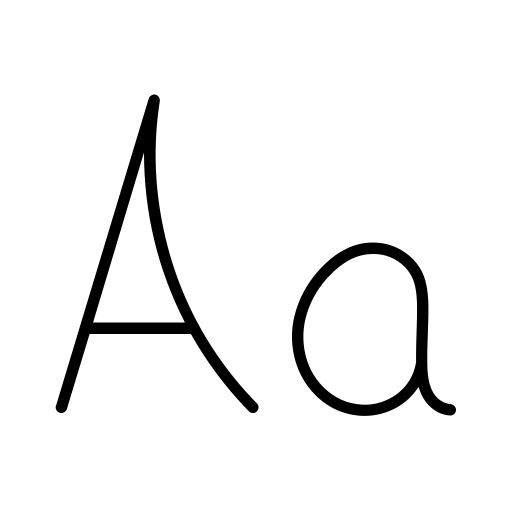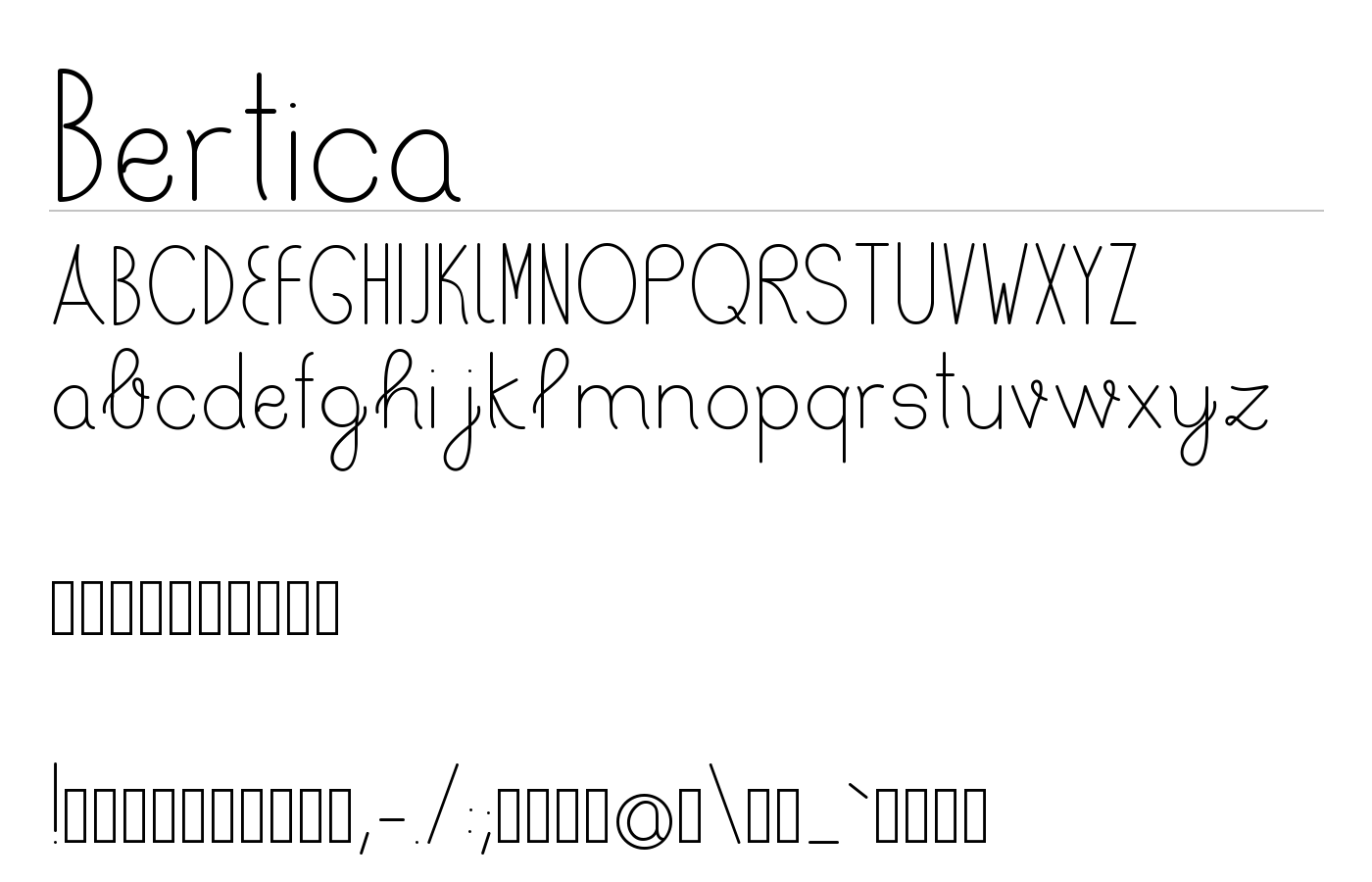
Bertica is a delicate, thin-lined sans serif font with a playful, handwritten feel thanks to its tall, narrow letterforms and subtle quirky details, especially in the lowercase characters. Its light weight and clean strokes make it perfect for creative projects that need a friendly, elegant touch, such as invitations, branding for artistic ventures, or whimsical editorial layouts. This font shines where a unique, airy style is desired without overpowering the design.
Bertica Font